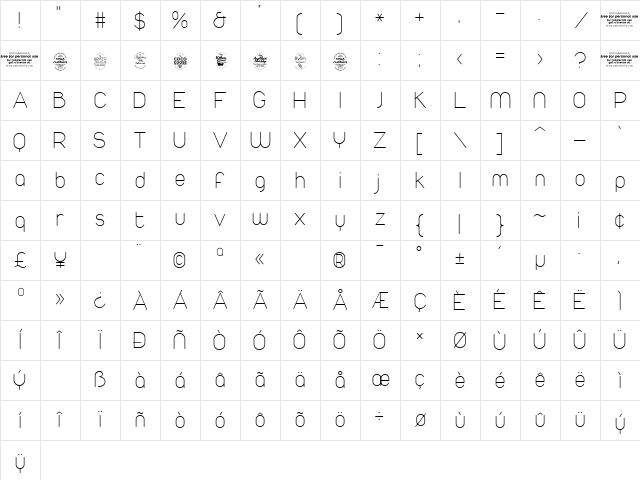
Duepuntozero ExtraLight Free Font
Duepuntozero ExtraLight
Style: ExtraLight
Foundry: studio kmzero
Designer: Francesco Canovaro, Matteo Di Iorio
Duepuntozero Family
Design Context for Duepuntozero
Duepuntozero is a composed and adaptable typeface that performs quietly and consistently across a wide range of design contexts. Its slender proportions lend an understated elegance to any composition.